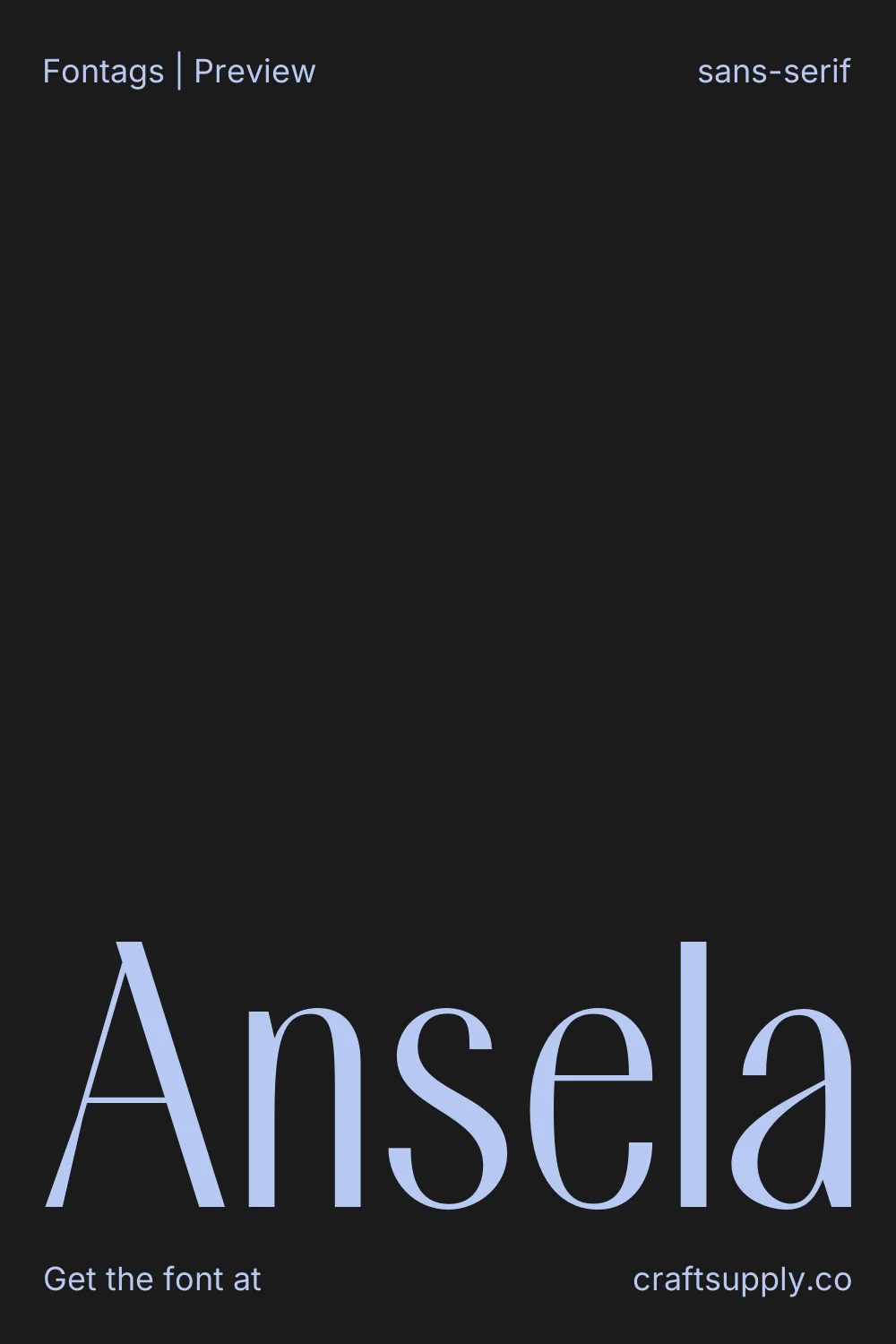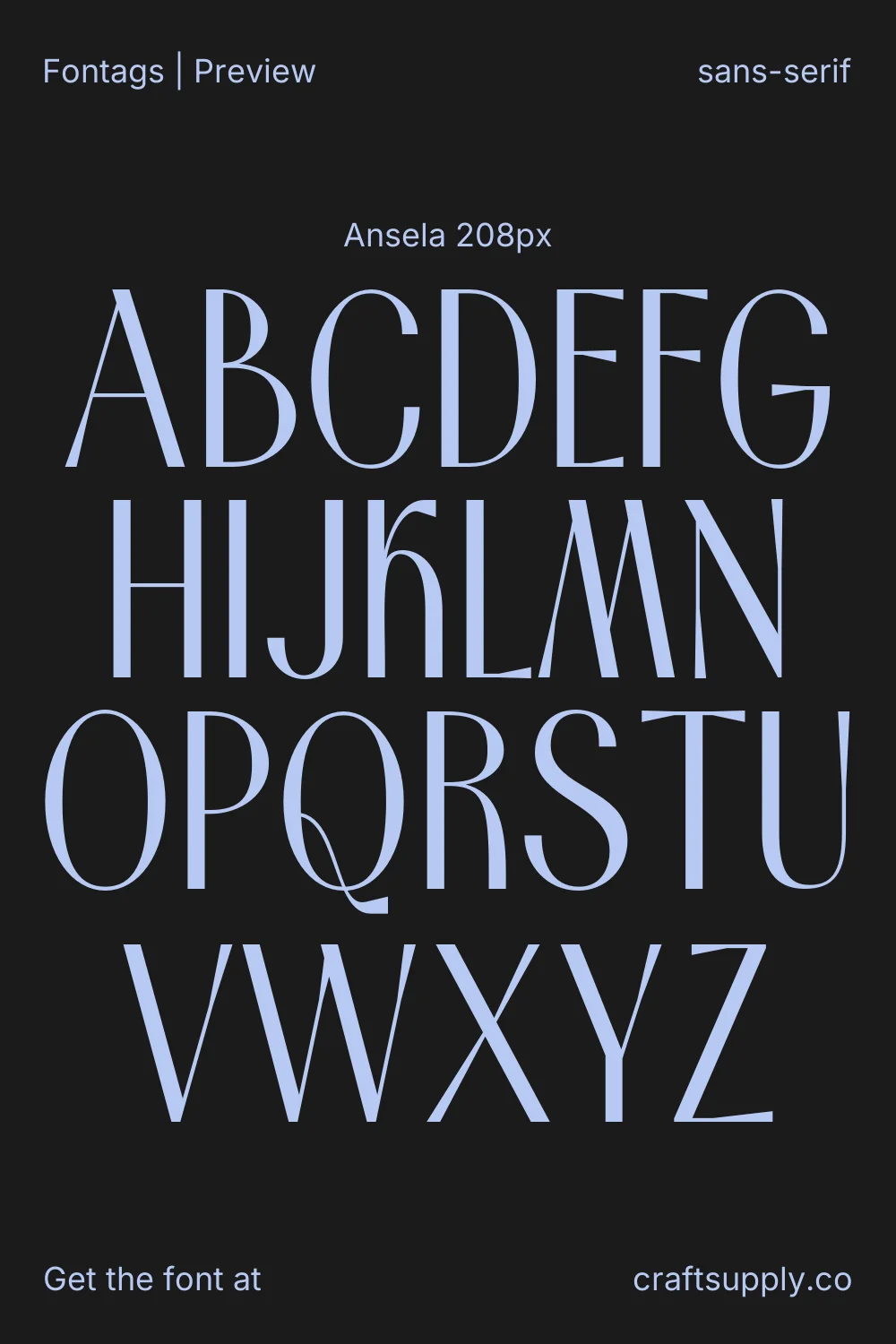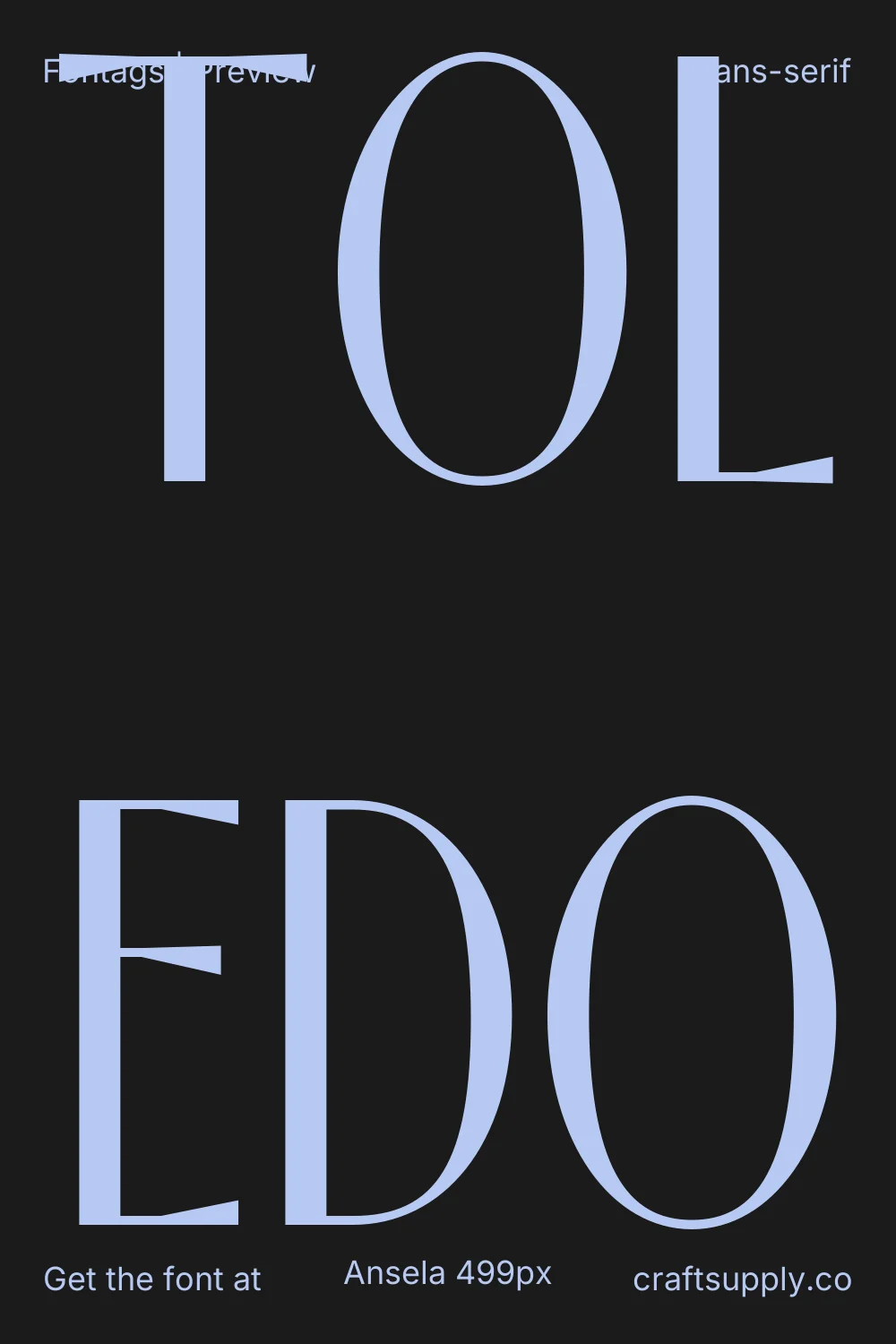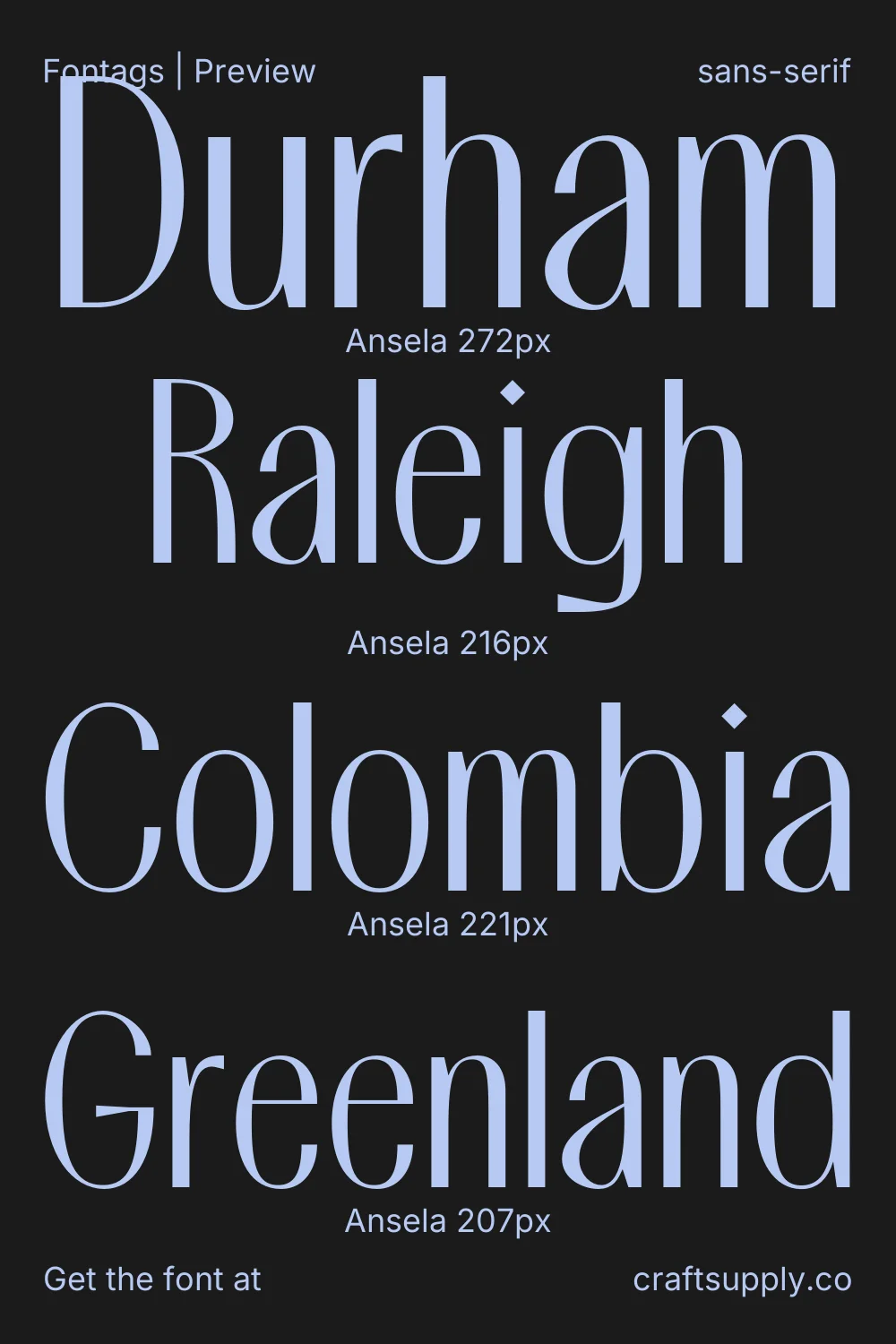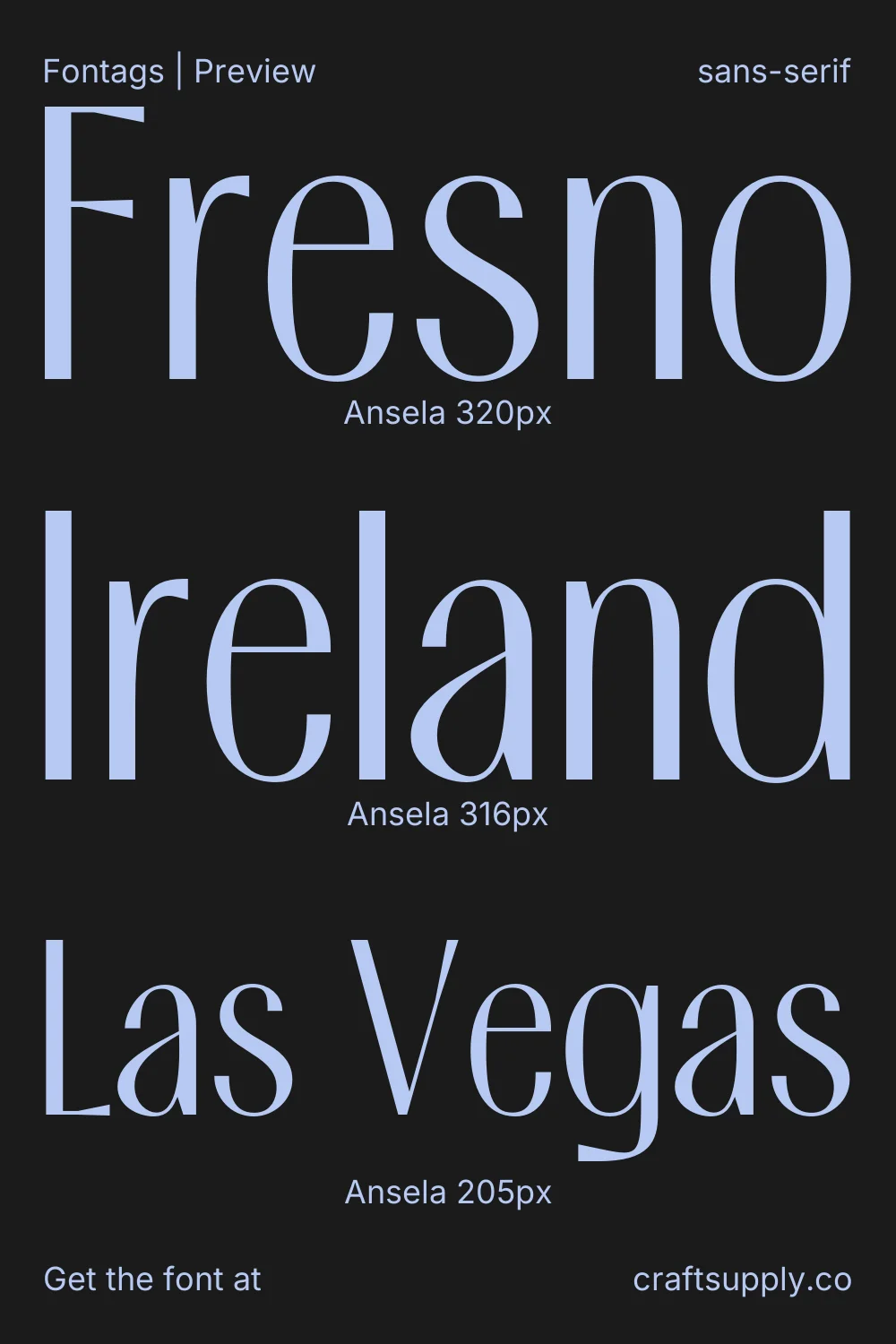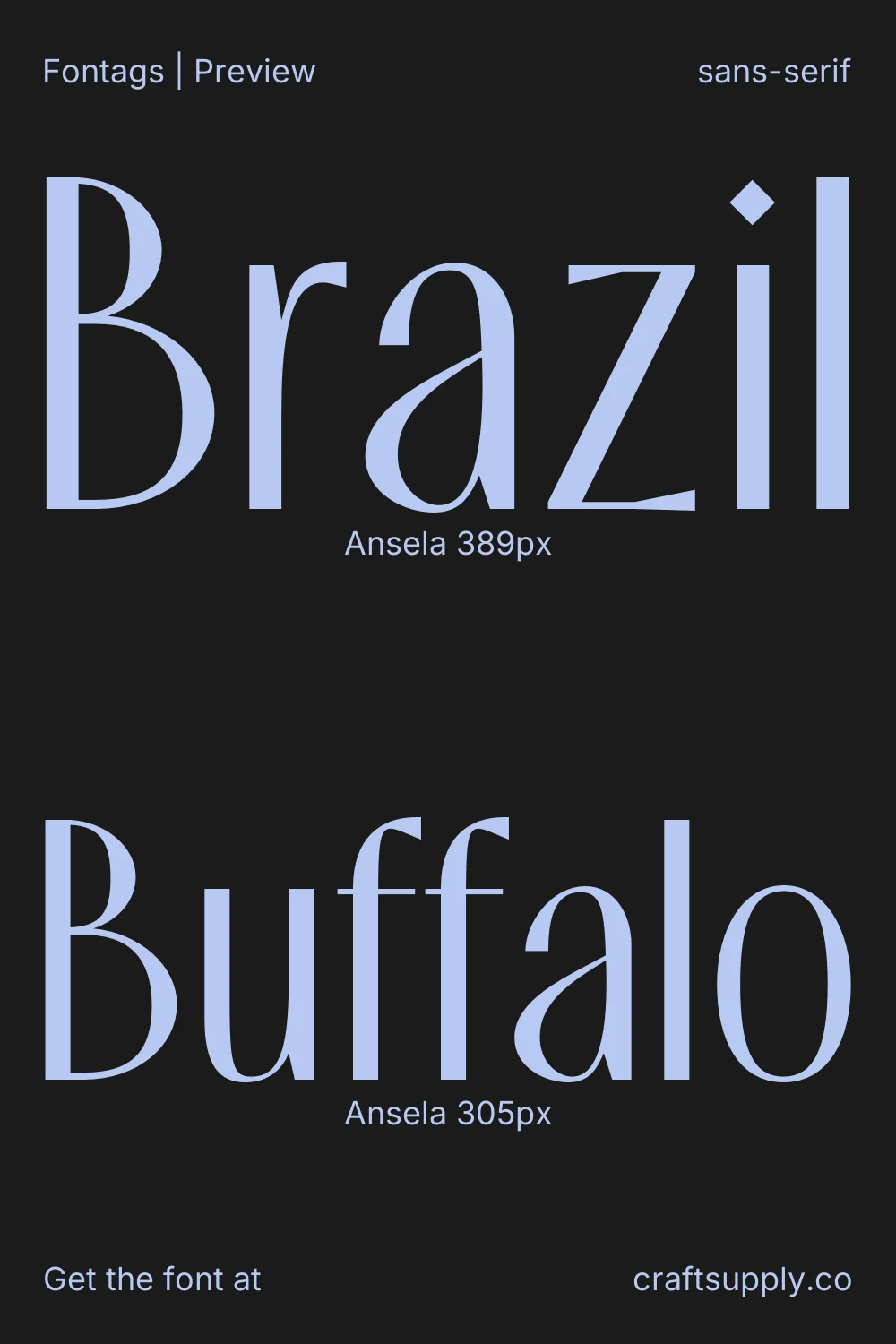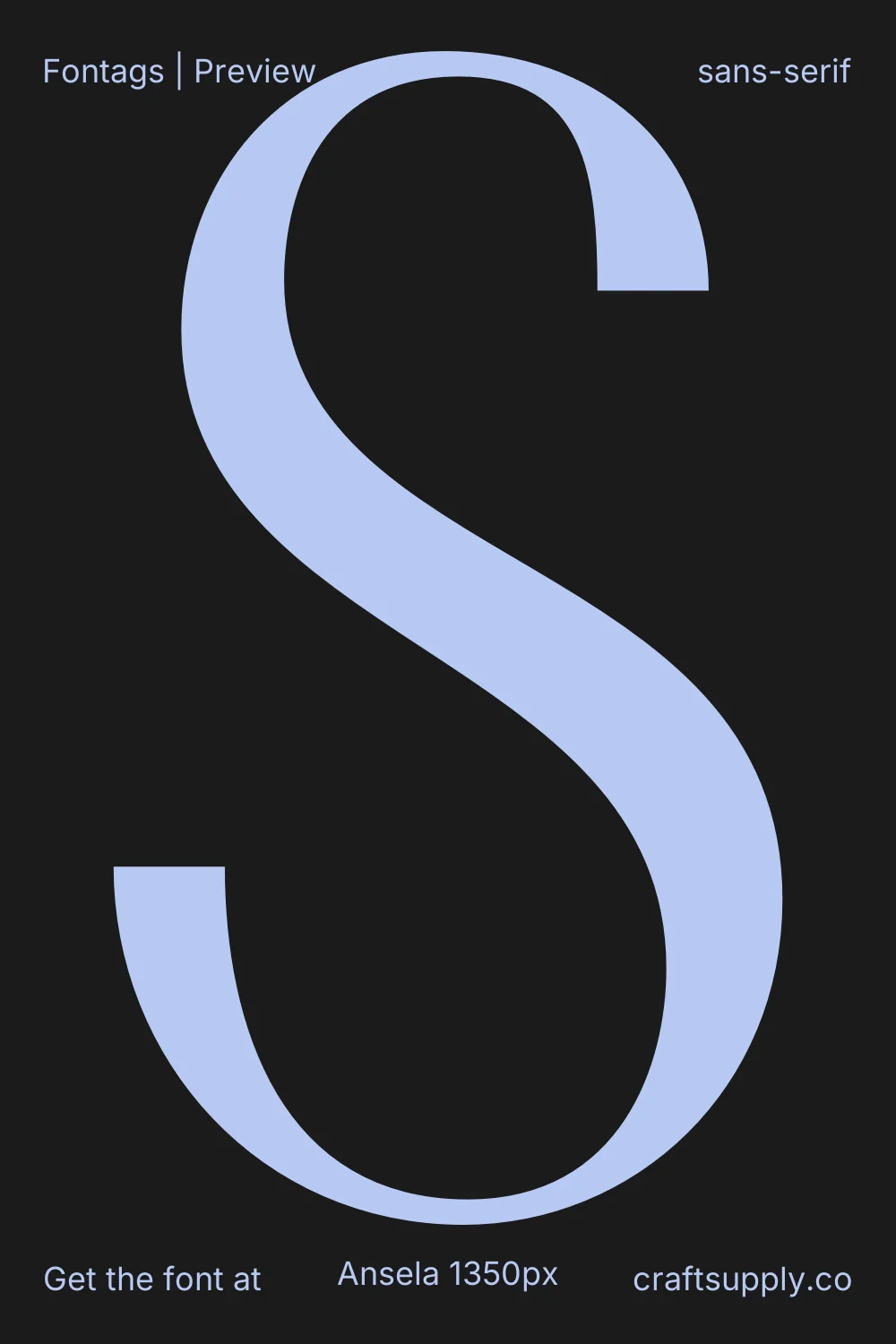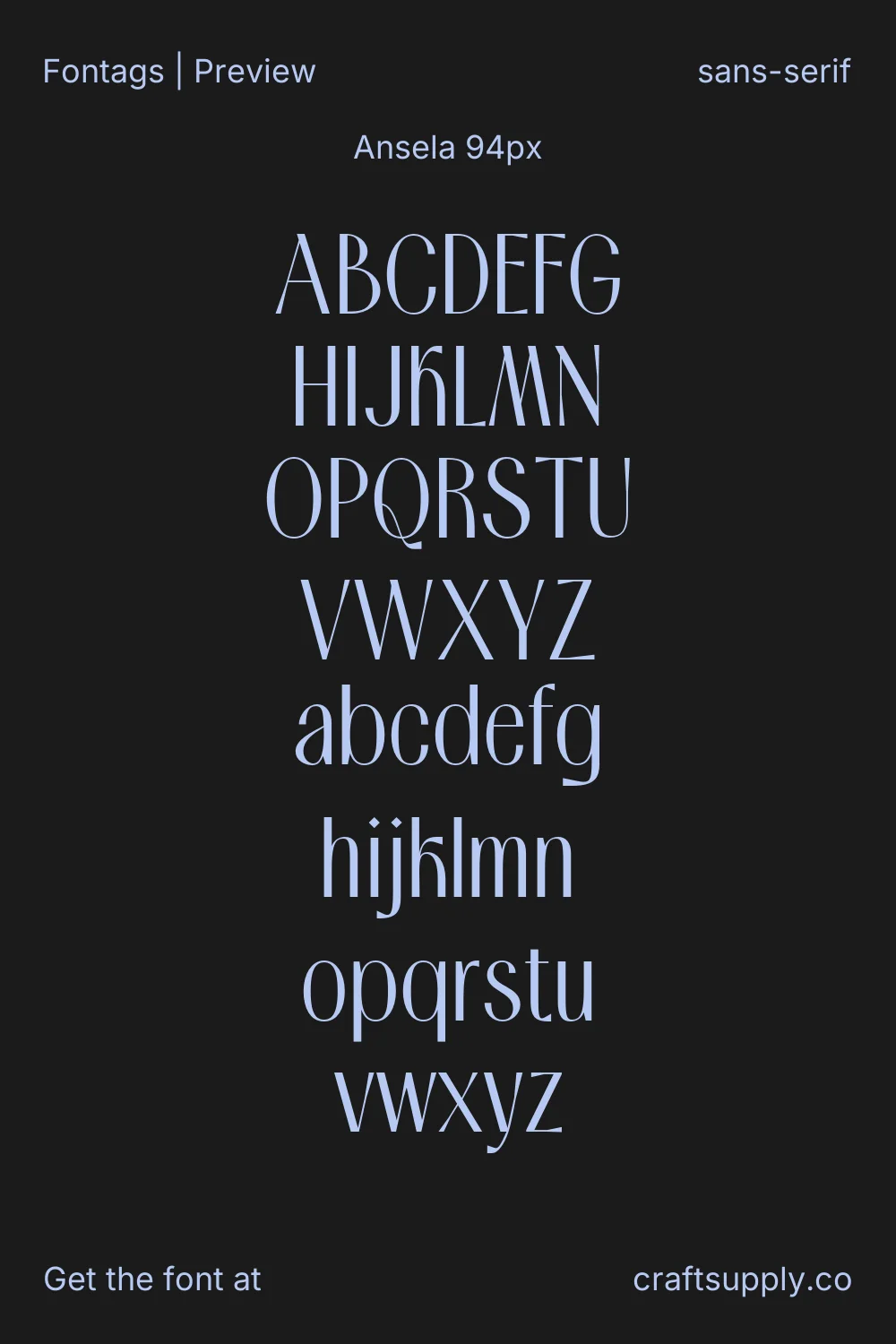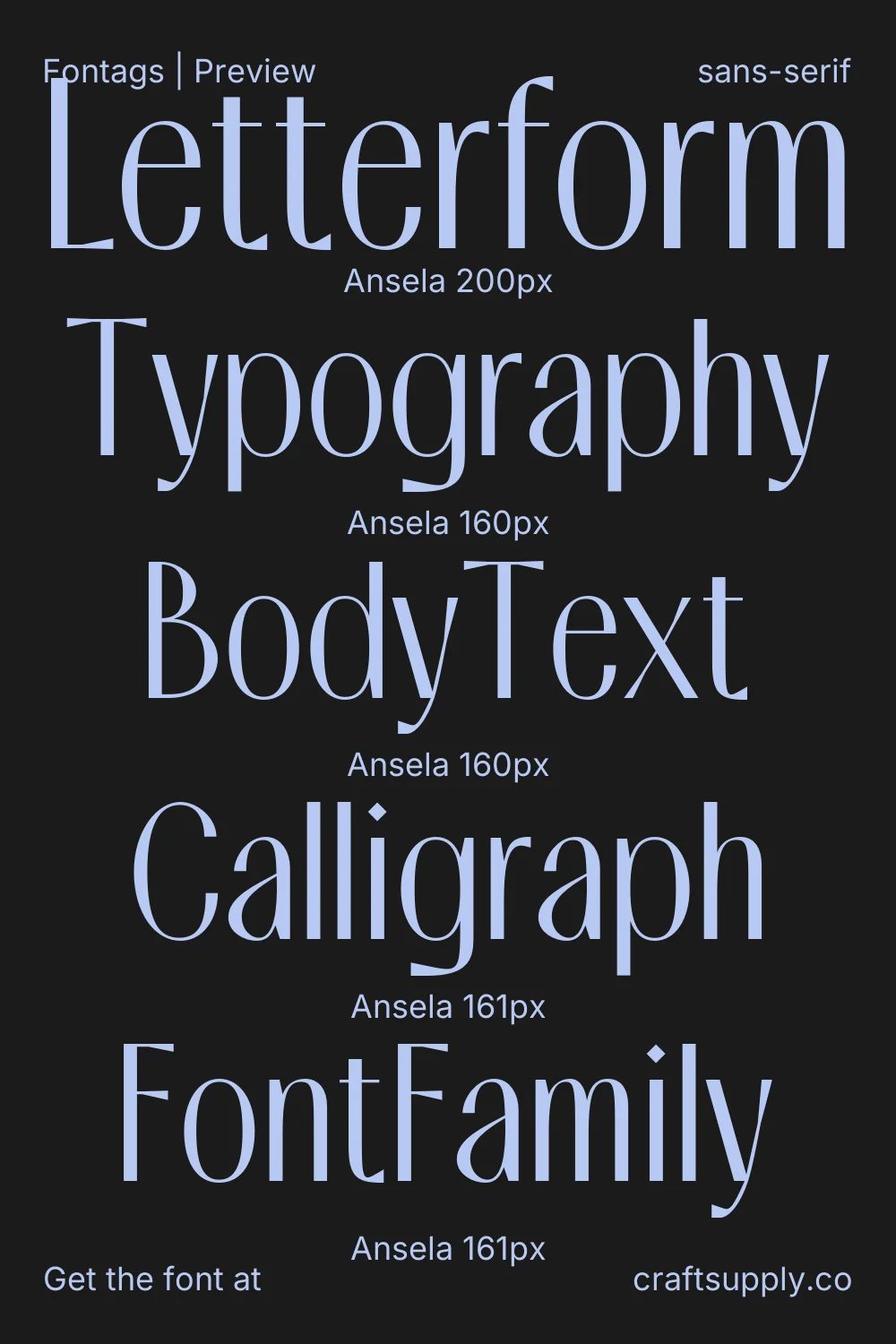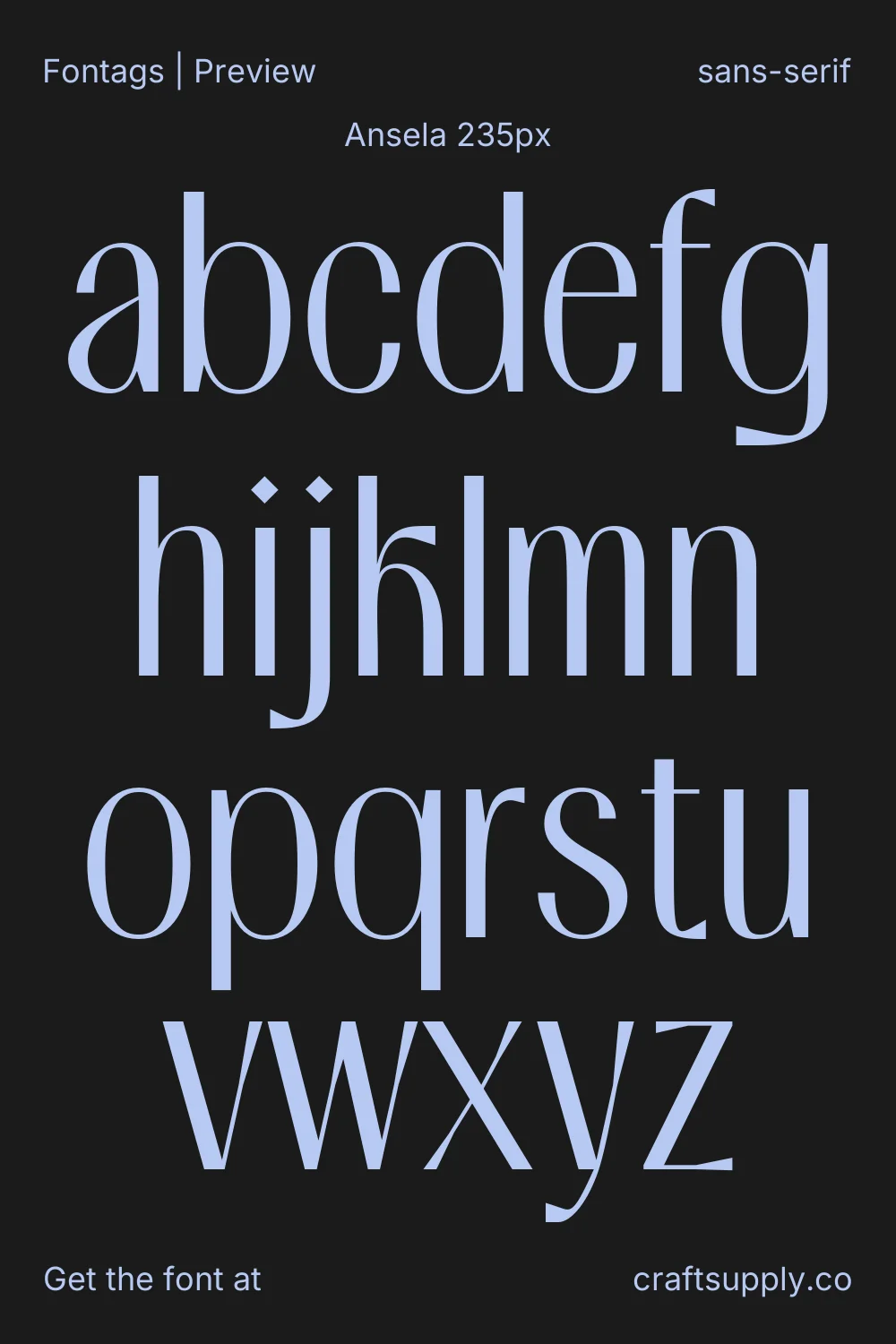
Ansela
Ansela is a sleek, modern sans serif font that embodies minimalist elegance. Its clean lines and simple forms offer timeless sophistication, making it an ideal choice for branding, editorial designs, and digital applications. The font balances contemporary aesthetics with refined grace.